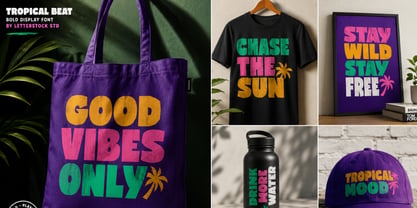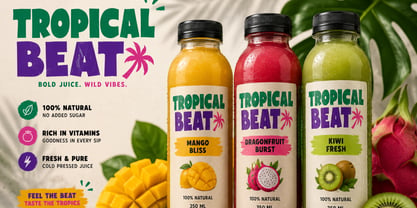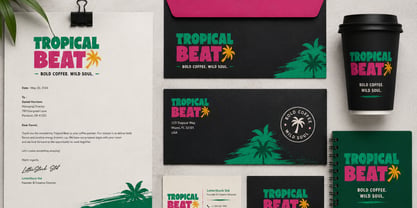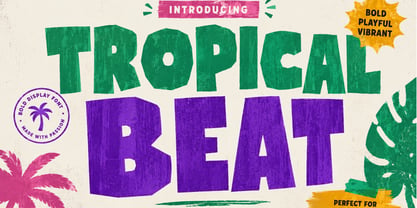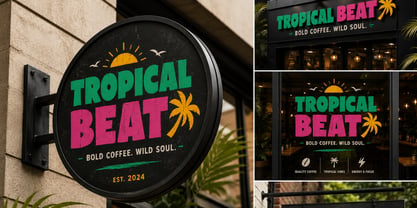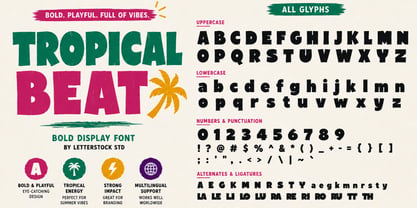
Tropical Beat
by LetterStock
Tropical Beat – Bold Display Font
Introducing Tropical Beat, a bold display font inspired by vibrant tropical vibes, sunny adventures, and playful summer energy. Featuring strong geometric letterforms with handcrafted textures and a striking personality, this font is designed to make your headlines impossible to ignore.
Whether you're creating branding, posters, logos, packaging, event graphics, or social media content, Tropical Beat brings a fresh, energetic, and eye-catching look to every project.
Its bold shapes and artistic character make it the perfect choice for designs that need a fun, modern, and adventurous feel.
Why You'll Love Tropical Beat
• Bold and impactful display font
• Unique handcrafted character
• Perfect for large headlines and titles
• Fun, vibrant, and energetic personality
• Easy to mix with modern and retro design styles
• Great for both digital and print projects
• Multilingual support
Perfect For
• Logo Design
• Branding & Visual Identity
• Posters & Flyers
• Product Packaging
• Event Promotions
• Summer and Travel Designs
• Social Media Graphics
• Book Covers
• Magazine Headlines
• Website Headers
• Advertising Campaigns
• Music and Festival Posters
• Creative Projects
• Printable Designs
• Editorial Designs
Font Features
• Uppercase Letters
• Lowercase Letters
• Numbers & Punctuation
• Multilingual Support
Tropical Beat is a bold display font that captures the spirit of adventure and creativity. If you're looking for a typeface that feels vibrant, playful, and full of energy, Tropical Beat is ready to make your designs stand out.